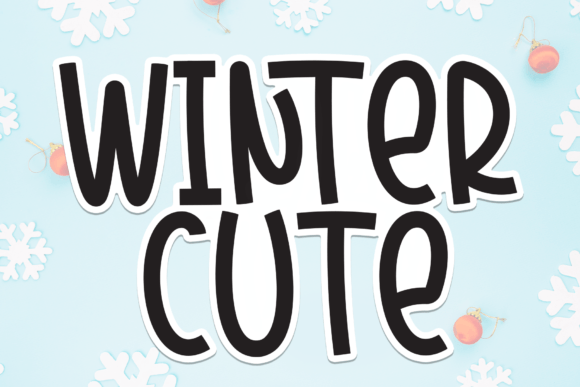
Winter Cute Font: The Perfect Addition to Your Winter Designs
As the winter season approaches, designers and crafty enthusiasts are on the lookout for the perfect font to add a touch of warmth and coziness to their projects. If you’re looking for a font that’s both sweet and friendly, look no further than Winter Cute Font. In this article, we’ll dive into the world of Winter Cute Font, exploring its features, uses, and benefits, as well as provide tips on how to make the most of this beautiful handwritten font.
What is Winter Cute Font?
Winter Cute Font is a sweet and friendly handwritten font that’s perfect for adding a personal touch to your designs. With its cute and versatile style, this font is ideal for writing wedding invitations, cards, or any other design that might need a fun touch. Whether you’re a designer, a crafty enthusiast, or a small business owner, Winter Cute Font is a great addition to your font collection.
Features of Winter Cute Font
So, what makes Winter Cute Font so special? Here are some of its key features:
- Sweet and friendly style: Winter Cute Font has a warm and inviting style that’s perfect for creating designs that feel cozy and intimate.
- Handwritten feel: This font has a beautiful handwritten feel that’s perfect for adding a personal touch to your designs.
- Versatile: Winter Cute Font is versatile and can be used for a wide range of projects, from wedding invitations to social media graphics.
- Easy to read: Despite its playful style, Winter Cute Font is easy to read, making it perfect for body text and headings.
Uses of Winter Cute Font
Winter Cute Font is a versatile font that can be used for a wide range of projects. Here are some ideas to get you started:
- Wedding invitations: Winter Cute Font is perfect for creating beautiful and unique wedding invitations that set the tone for a special day.
- Cards and stationery: This font is great for creating handmade cards, stationery, and gift tags that feel personal and special.
- Social media graphics: Winter Cute Font can be used to create fun and engaging social media graphics, such as quote graphics, Facebook posts, and Instagram stories.
- Blog and website design: This font can be used to add a personal touch to your blog or website, making it feel more welcoming and friendly.
Benefits of Using Winter Cute Font
So, why should you choose Winter Cute Font for your projects? Here are some benefits of using this beautiful font:
- Adds a personal touch: Winter Cute Font adds a personal touch to your designs, making them feel more unique and special.
- Evokes emotions: This font has a warm and inviting style that can evoke emotions and create a connection with your audience.
- Versatile: Winter Cute Font can be used for a wide range of projects, making it a great addition to your font collection.
Tips for Using Winter Cute Font
Here are some tips for using Winter Cute Font to get the most out of this beautiful font:
- Use it for headings and titles: Winter Cute Font is perfect for headings and titles, where its playful style can really shine.
- Mix it with other fonts: This font can be paired with other fonts to create a unique and interesting look.
- Experiment with colors: Winter Cute Font looks great in a range of colors, from bright and bold to soft and pastel.
- Use it for body text: While Winter Cute Font is perfect for headings, it can also be used for body text, especially for shorter paragraphs.
Winter Cute Font is a beautiful and versatile handwritten font that’s perfect for adding a personal touch to your designs. With its sweet and friendly style, this font is ideal for writing wedding invitations, cards, or any other design that might need a fun touch. Whether you’re a designer, a crafty enthusiast, or a small business owner, Winter Cute Font is a great addition to your font collection. So why not give it a try and see how it can elevate your designs?
- Q: What is Winter Cute Font?